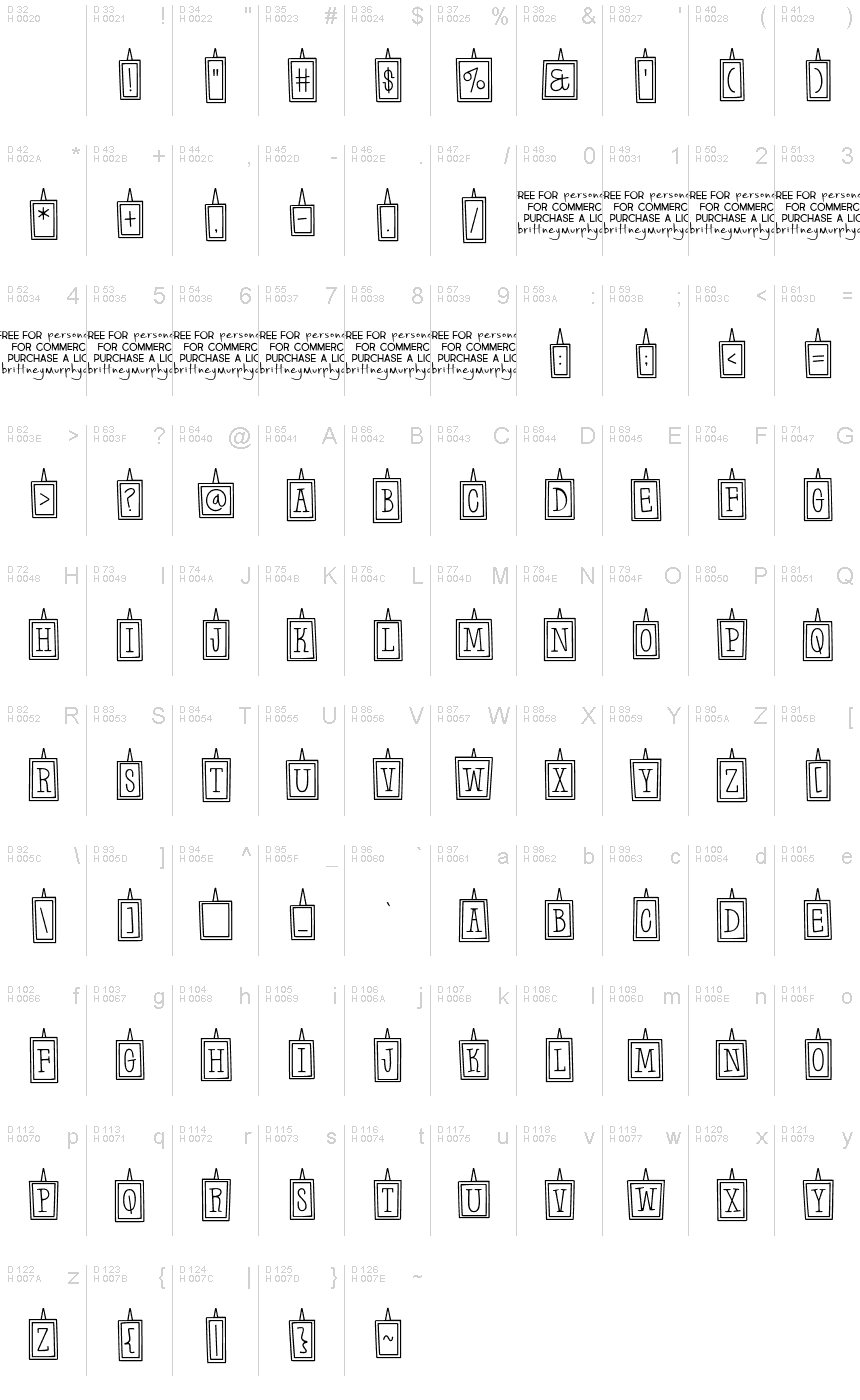
Welcome to the captivating world of Hanging Frames, a unique display font designed by Brittney Murphy Design. The semi-light weight and condensed width give this decorative typeface a playful feel, perfect for creating eye-catching headlines or adding personality to your branding projects. The hanging frames with letters inside add an extra touch of creativity and intrigue, making it suitable for projects such as invitations, posters, album covers, or anything that needs a touch of whimsy. So go ahead and let your imagination run wild with Hanging Frames - a font that's sure to make an impression!
Hanging Frames
Brittney Murphy